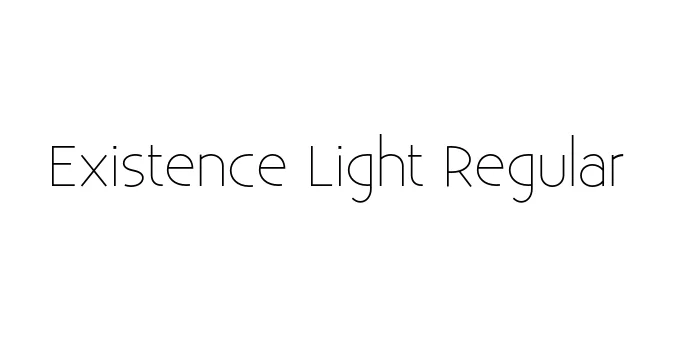
Existence Light Regular
Designed by Thomas Jongwon Jih
Existence Light is a minimalist, monoline sans-serif typeface designed by Thomas Jongwon Jih. It is characterized by its geometric construction and uniform stroke width, which gives it a very clean and contemporary appearance. The font was originally released under the Yeah Noah foundry and has become a staple for designers looking for a thin, airy aesthetic that prioritizes legibility and modern simplicity.
The Light Regular weight specifically emphasizes a delicate touch, making it ideal for high-end branding and editorial layouts. While it maintains a professional structure, its lack of embellishments allows it to blend seamlessly into various digital and print environments. Over the years, it has gained popularity as a reliable alternative to premium hairline or thin sans-serif typefaces.
Existence Light Regular Best Uses
Perfect for modern, minimalist logos that require a clean and balanced look.
Excellent for thin headlines and pull quotes in fashion and lifestyle magazines.
Works exceptionally well as a hero section font for a contemporary aesthetic.